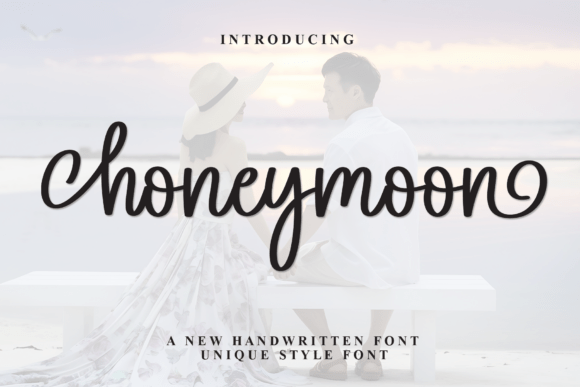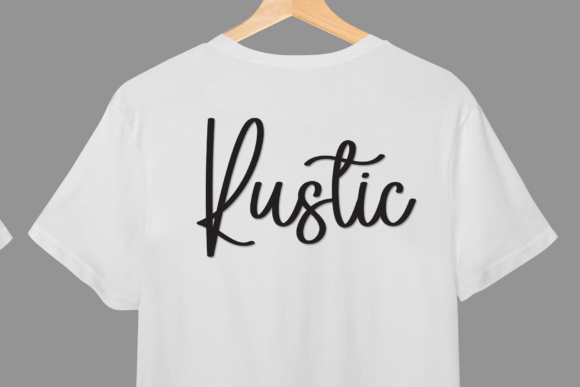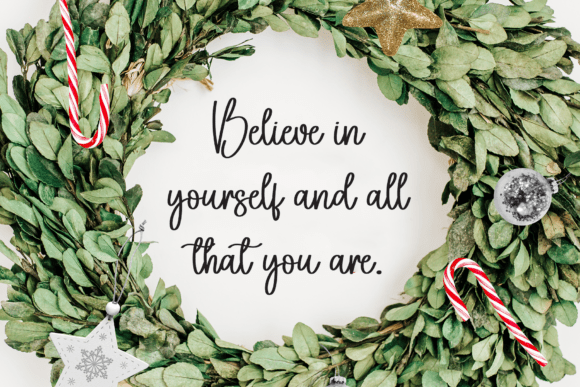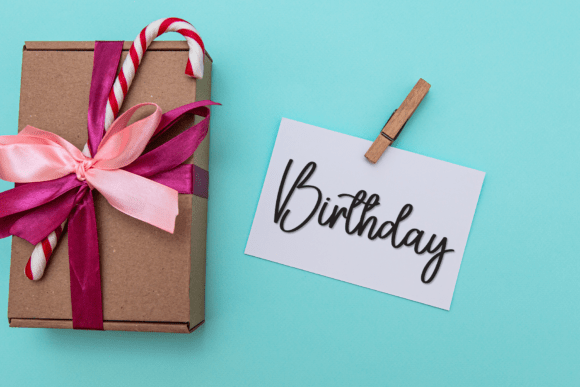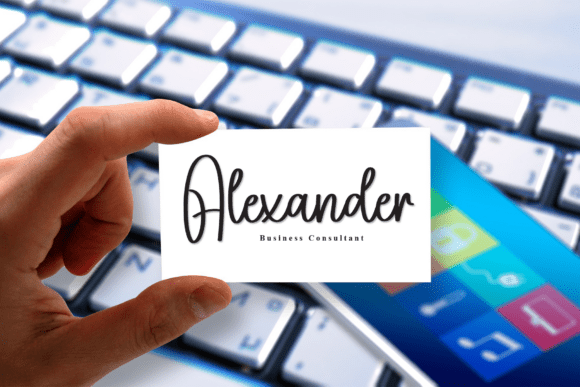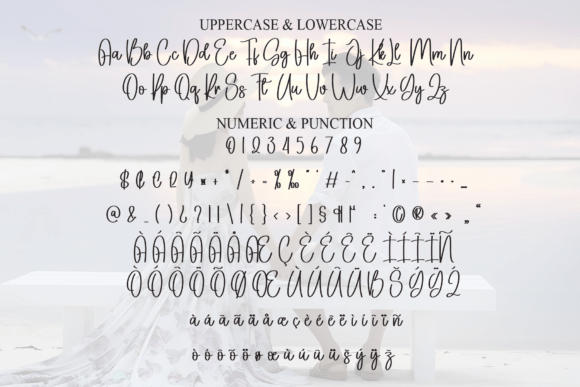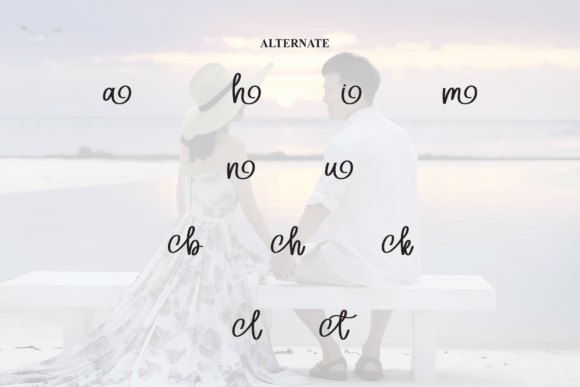
Love at First Sight: Introducing the Honeymoon Font
Do you remember that moment when you saw the perfect font that made your design come alive? The one that made you feel like you’re speaking the language of love? For designers, that moment is what makes all the hard work worth it. And today, we’re thrilled to introduce the Honeymoon Font, a special creative product that will make your heart skip a beat.
This beautiful font is designed to add a touch of romance and elegance to any project. Whether you’re working on a wedding invitation, a social media post, or a product packaging design, the Honeymoon Font is the perfect companion. With its versatility and range of styles, you’ll be able to create stunning visuals that will leave your audience in awe.
Honeymoon Font Key Features
- Font Family: Honeymoon is a modern script font designed for elegant and sophisticated designs.
- Unique Characteristics: Honeymoon features a unique blend of elegance and playfulness, making it ideal for wedding invitations, announcements, and other special occasions.
- Language Support: Honeymoon supports a wide range of languages, including Latin, Cyrillic, and Greek scripts.
Honeymoon Font Review
Honeymoon Font is a beautiful script font designed for romantic and elegant purposes. ✨ The flowing lines and organic feel make it perfect for wedding invitations, love quotes, and other sentimental projects.
- ✨ Elegant and sophisticated look that’s perfect for weddings and love-themed projects
- ✨ Great for creating a sense of romance and whimsy
- ✨ Highly customizable with various font weights and styles
However, there are some limitations:
- ⚠️ Limited font sizes and styles might not be suitable for larger projects or bold headlines
- ⚠️ Some characters might not display correctly in certain font sizes or combinations
Overall, Honeymoon Font is a lovely addition to any designer’s toolkit. While it has some limitations, its elegant and sophisticated look makes it perfect for romantic and sentimental projects. With some careful planning and customization, you can create truly beautiful designs with this font.
Tips for Getting the Most Out of Honeymoon Font
For the best results, use Honeymoon Font in conjunction with other elegant and romantic design elements, such as floral patterns and soft pastel colors. Experiment with different font sizes and styles to create a unique and eye-catching design.
Honeymoon Font is ideal for wedding invitations, wedding stationery, and other romantic designs. It can also be used for Valentine’s Day and anniversary cards, as well as for any other occasion that calls for a touch of elegance and romance.
Alternatives to Honeymoon Font
Great Vibes is a modern, elegant script font perfect for romantic designs, wedding invitations, and any other project that requires a touch of sophistication. It has a similar feel to Honeymoon Font but with a more refined and polished look. Use Great Vibes when you need a font that exudes luxury and glamour.
Alex Brush is a beautiful, handwritten font ideal for creative projects that require a personal touch. It has a more organic and whimsical feel compared to Honeymoon Font, making it perfect for designs that need a bit of character. Use Alex Brush when you want to add a touch of personality to your design.
Carolyna Pro is a modern, elegant script font that’s perfect for luxury brands, high-end designs, and anything that requires a touch of sophistication. It has a similar feel to Honeymoon Font but with a more modern and sleek look. Use Carolyna Pro when you need a font that exudes elegance and refinement.
Permanent Marker
Permanent Marker is a bold, handwritten font ideal for designs that require a touch of edginess. It has a more playful and energetic feel compared to Honeymoon Font, making it perfect for projects that need a bit of excitement. Use Permanent Marker when you want to add a touch of playfulness to your design.
Q: What is the recommended font size range for Honeymoon Font?
The recommended font size range for Honeymoon Font is between 12px and 48px. This range provides optimal readability and legibility for body text. For headings and titles, you can use larger font sizes, up to 72px or more, depending on the design requirements. Remember to adjust the line height and leading to ensure proper typography and readability.